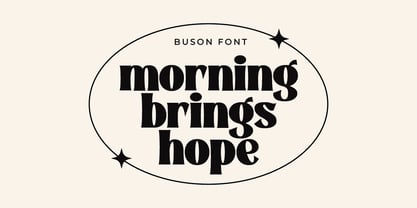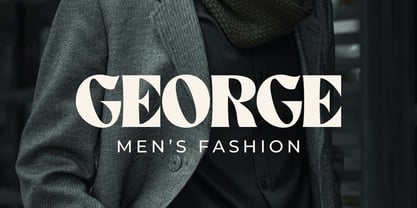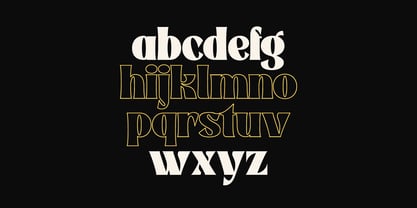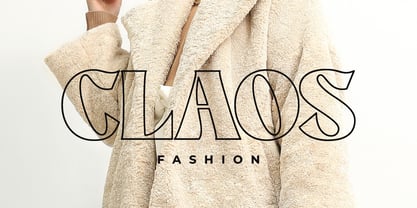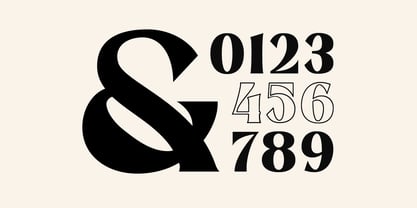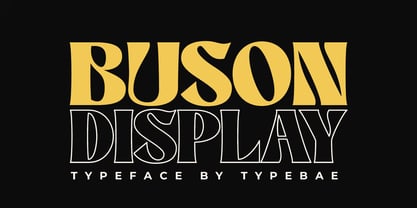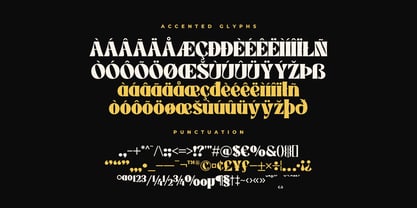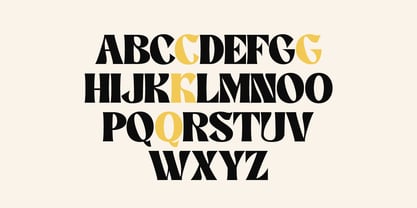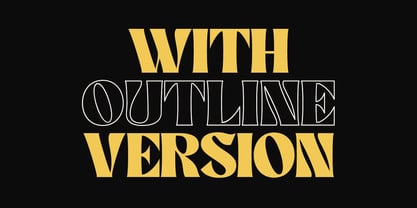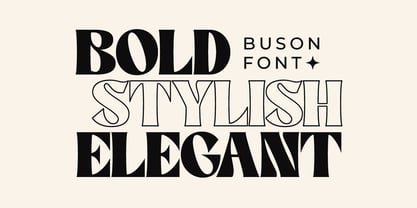
Buson
by Typebae
The Buson Font Family was designed by Iqbal Firdaus, Iqbal Pauji and published by Typebae. Buson contains 2 styles and family package options.
Buson is a stylish retro serif display font that blends vintage charm with a modern twist. Its bold strokes and playful curves make it perfect for posters, logos, headlines, branding, and editorial projects. With its unique cutout details and eye-catching forms, Buson brings character and personality to any design. Whether for digital or print use, this font delivers a timeless retro vibe with a contemporary edge. What’s Included: - Uppercase & Lowercase - Numbers & Punctuation - Stylistic Alternate - Multilingual & PUA Encoded